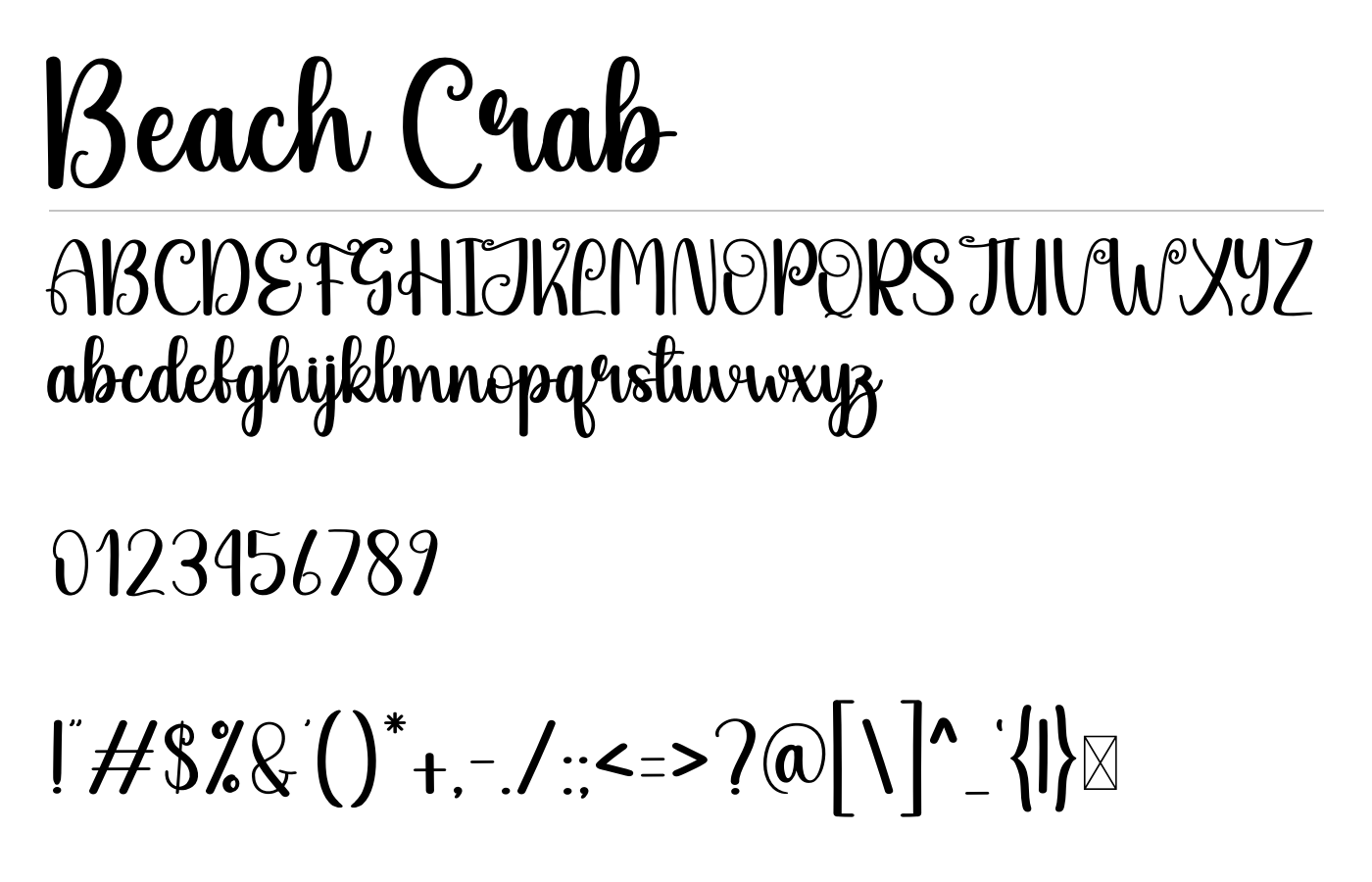
Beach Crab is a playful and whimsical script font with a casual, hand-drawn feel. Its smooth, rounded strokes and decorative swirls give it a friendly and lighthearted personality, making it perfect for creative projects that seek a fun and approachable vibe. This font works especially well for invitations, logos, and branding that aim to evoke a cheerful and relaxed mood.
Beach Crab Font